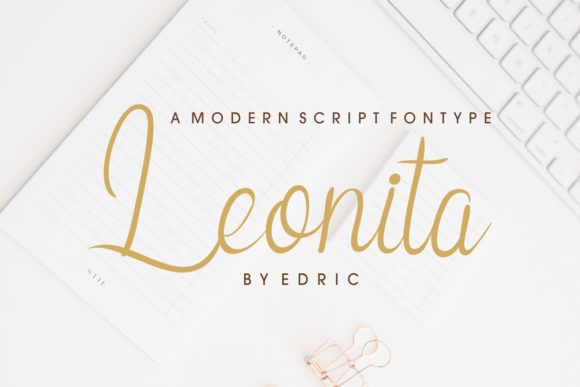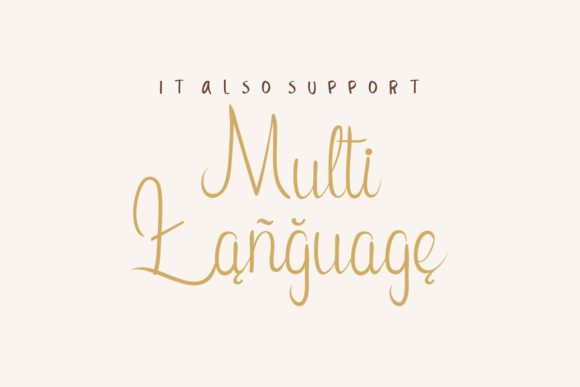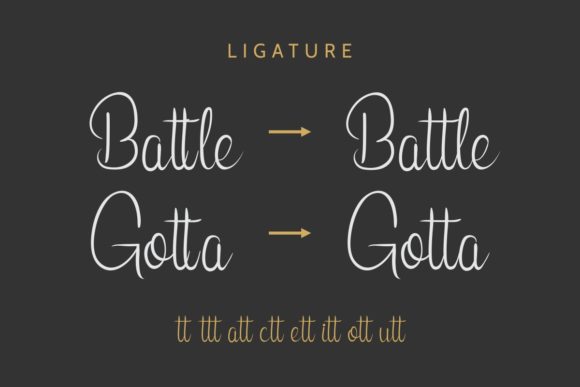
Introduction to Leonita Font
Imagine you’re working on a creative project, and you’re struggling to find the perfect font to give it that extra touch of elegance. You’ve searched through countless design resources, but nothing seems to fit the bill. That’s where Leonita Font comes in β a sweet and simple script that delivers a unique approach to contemporary elegance.
As designers, we’re always on the lookout for high-quality fonts that can elevate our work and make it stand out from the crowd. Leonita Font is a valuable addition to any design arsenal, offering a transparent background that allows for seamless integration into any project. And the best part? It’s available for free download, making it an accessible design resource for creatives of all levels.
Key Features of Leonita Font
- High-quality font with a transparent background, making it ideal for creative projects.
- Perfect for use in digital design, including websites, social media, and mobile apps, with a recommended resolution of 300 DPI.
- Unique characteristics include a modern and elegant design, making it suitable for a wide range of creative projects.
- Designed to be highly legible, even at small font sizes, ensuring that your text remains clear and readable.
- Includes a comprehensive character set, covering a wide range of languages, making it a versatile design resource.
Honest Review: Leonita Font
I recently had the opportunity to work with the Leonita Font for a creative project, and I must say it’s been a great experience. This font is a fantastic addition to any design resource collection.
What works well with Leonita Font is its high quality and versatility. It’s a great choice for designers looking to create visually appealing and professional-looking content. The font is available for free download, which is a huge plus for those on a budget.
The font comes with a transparent background, making it easy to customize and use in various design applications.
Here are some of the features that stood out to me:
- Transparency for easy customization
- Perfect for creative projects
Overall, I’m impressed with the Leonita Font and would highly recommend it to fellow designers.
β οΈ One minor limitation I encountered was the limited character set, which may not be ideal for long-form content. However, this is a minor issue and does not detract from the overall quality of the font.
Leonita Font
The Leonita Font is a versatile and stylish design resource perfect for creative projects. With its high quality and transparent background, it’s a great addition to any project.
Tips for Getting the Most Out of Leonita Font
To get the most out of the Leonita Font, use it in conjunction with other design resources, such as images and graphics. Experiment with different font sizes, colors, and combinations to create unique and eye-catching designs.
The Leonita Font is perfect for a variety of creative projects, including:
- Logos and branding materials
- Graphics and infographics
- Typography-based designs
- Presentations and reports
Alternatives to Leonita Font
Lato Font is a popular sans-serif typeface suitable for creative projects that require a high-quality, modern look. It’s ideal for designs with transparent backgrounds or overlays, making it perfect for logos, headings, and titles. Lato Font is available for free download and is widely used in various design resources. Compared to Leonita Font, Lato has a cleaner and more minimalist design, making it a great choice for modern designs.
Amaranth Font
Amaranth Font is a unique and elegant script typeface suitable for creative projects that require a touch of sophistication. It’s ideal for designs that need a high-quality, handwritten look, such as invitations, quotes, or decorative headings. Amaranth Font is available for free download and is a great design resource for those who want to add a personal touch to their projects. Compared to Leonita Font, Amaranth has a more ornate and luxurious design, making it perfect for high-end designs.